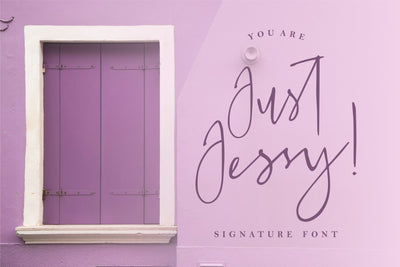
Just Jessy - Signature Font
ADVANTAGES OF ELLAINE
- 60 Ligature Style
Introducing JUST JESSY! - a new signature font with elegant lines that makes this font perfect for imaging your personal brand and every great project, such as logos, invitations, stationery, wedding designs, social media posts, advertisements, product packaging, product design, labels, photography, watermarks, special events, and more!
ADVANTAGES OF ELLAINE
- 60 Ligature Style